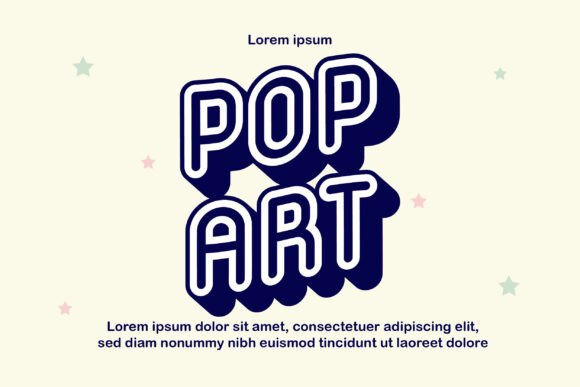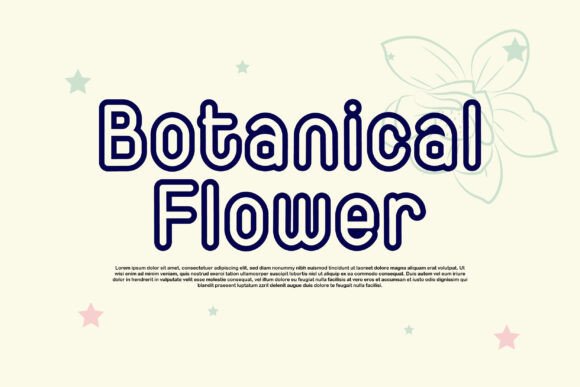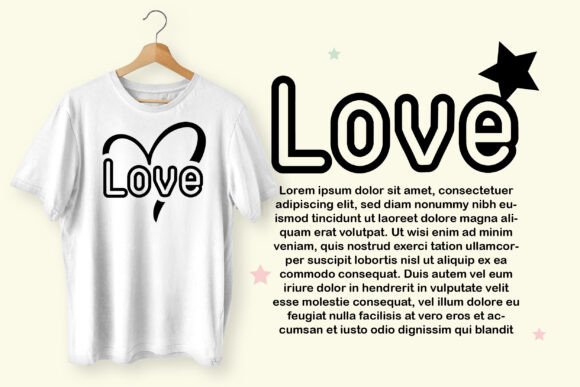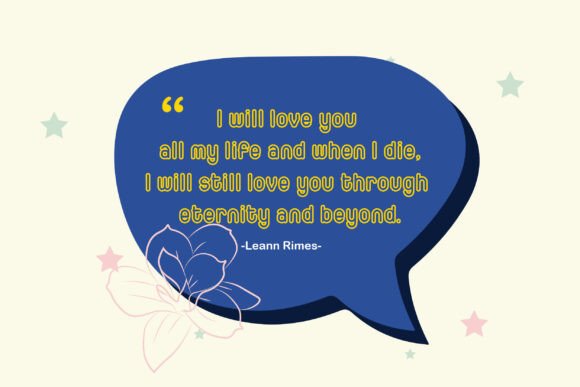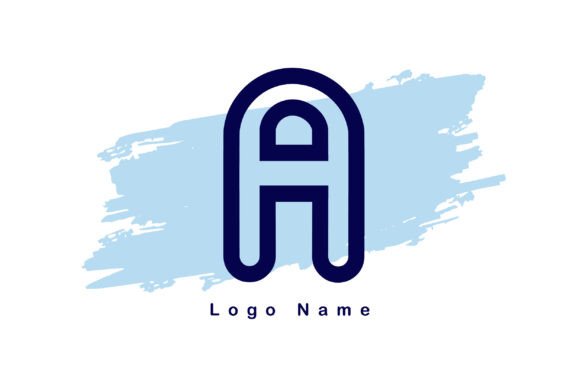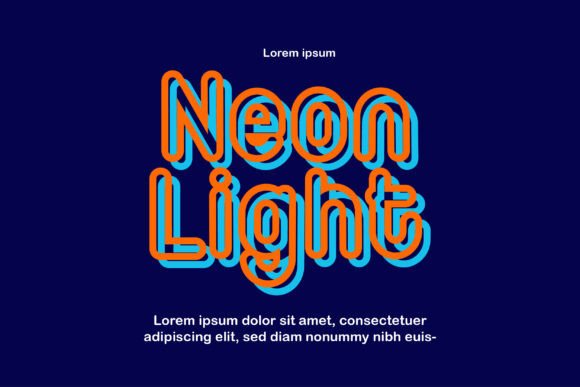
Introduction to Minimalis Outline Font
Minimalis Outline is a clean and modern outlined display font that gives your designs a stylish, futuristic vibe.
Ideal for posters, branding, or digital media where simplicity and uniqueness go hand in hand .
Key Features of Minimalis Outline Font
Why Choose Minimalis Outline Font?
Minimalis Outline Font offers exceptional quality and versatility, making it a valuable addition to your design toolkit. Whether you’re creating for personal projects or commercial use, Minimalis Outline Font delivers professional results.